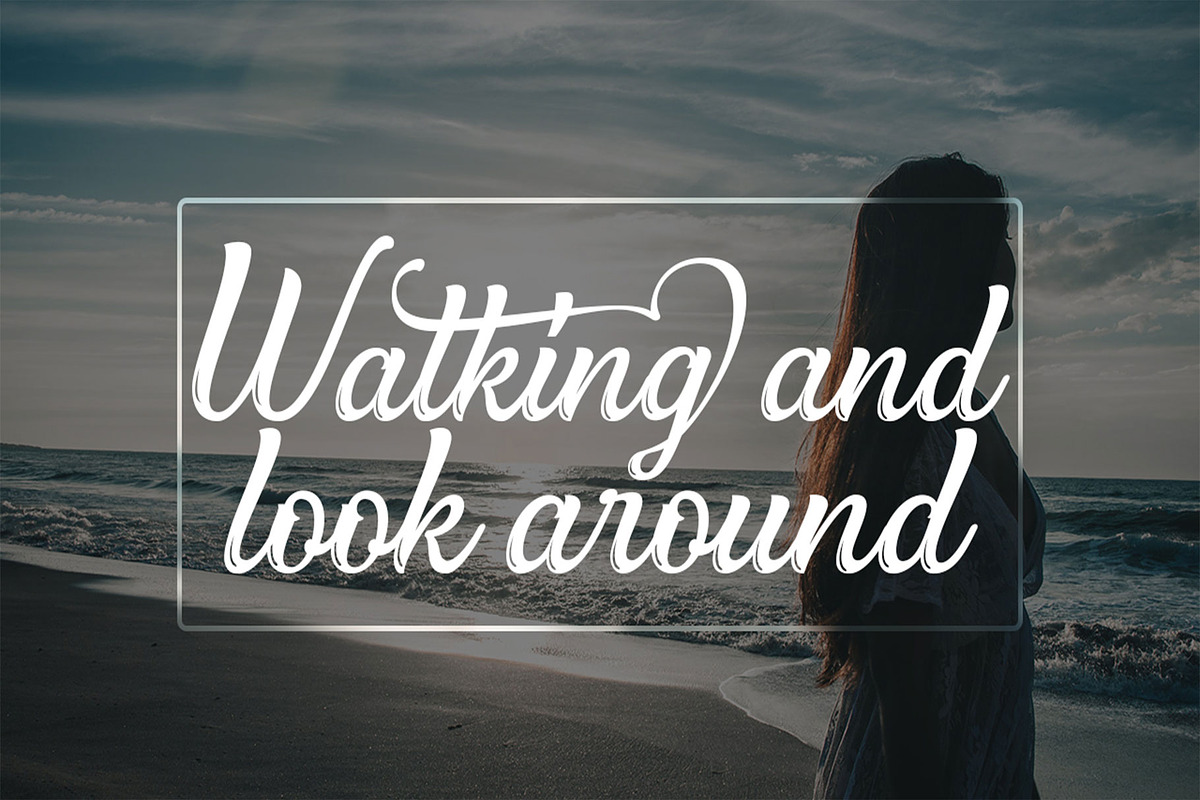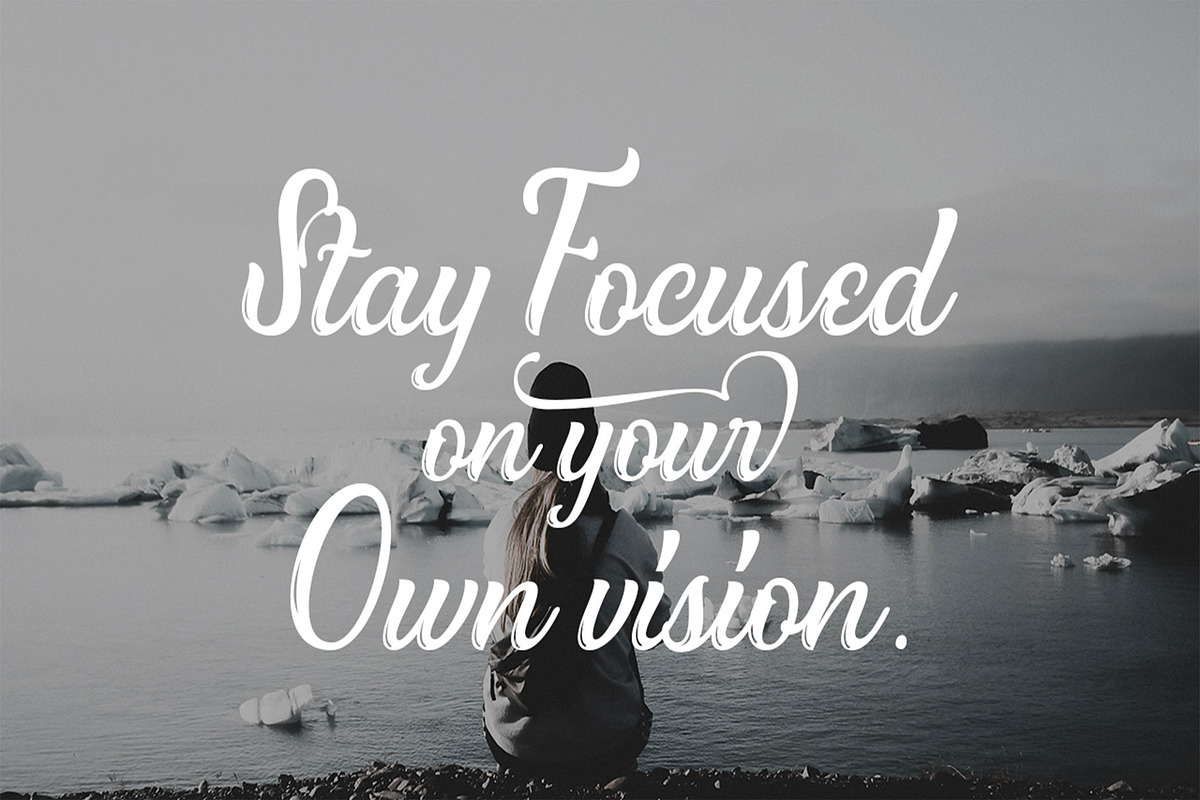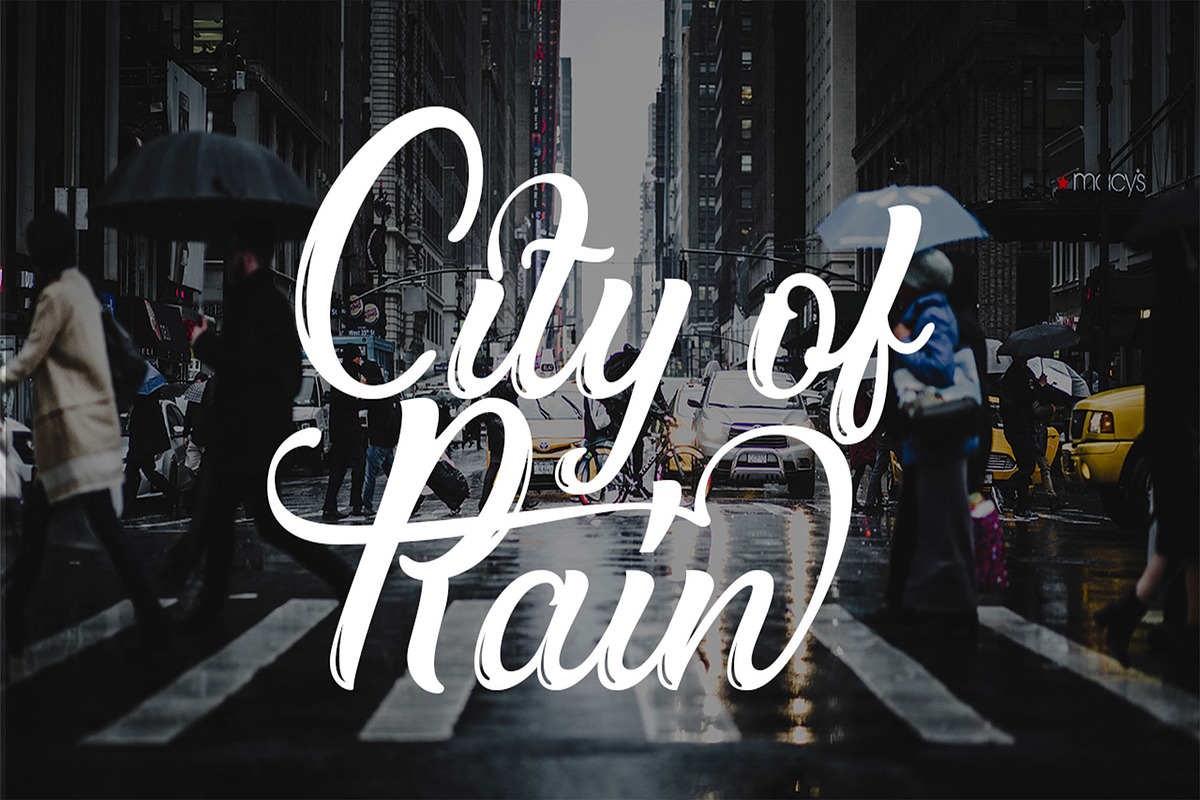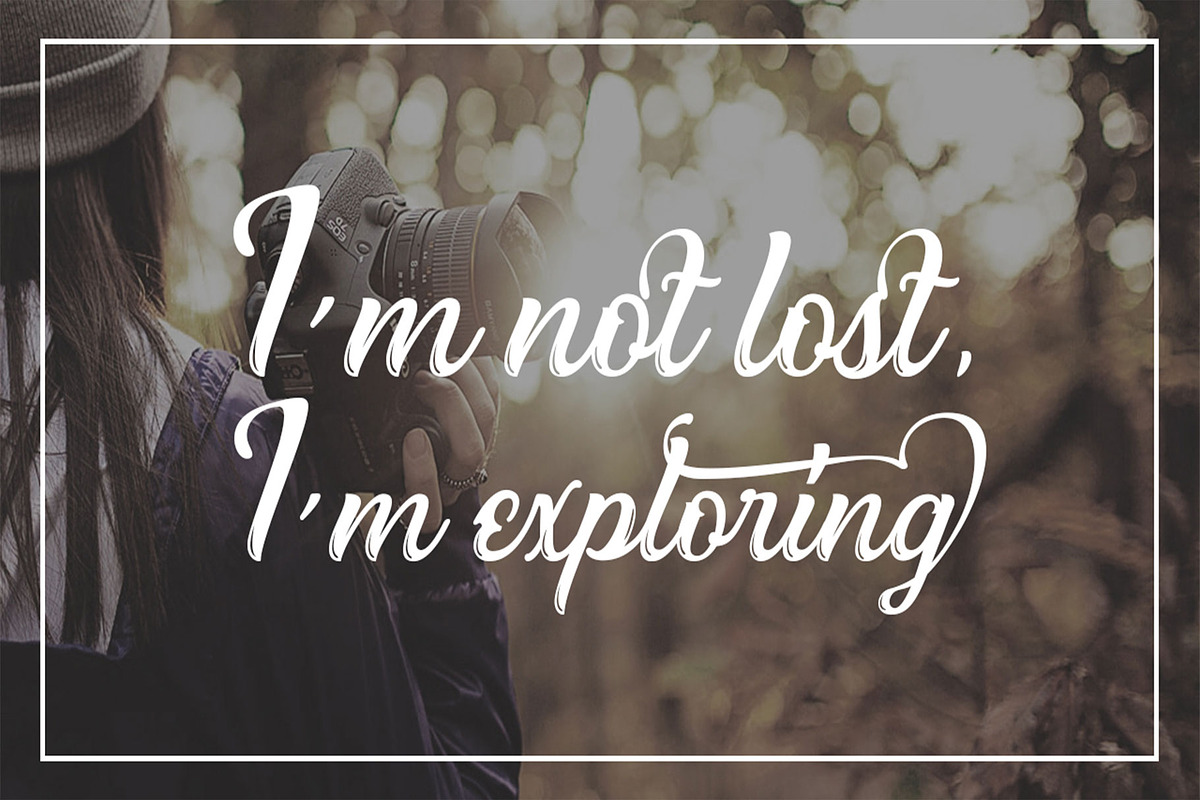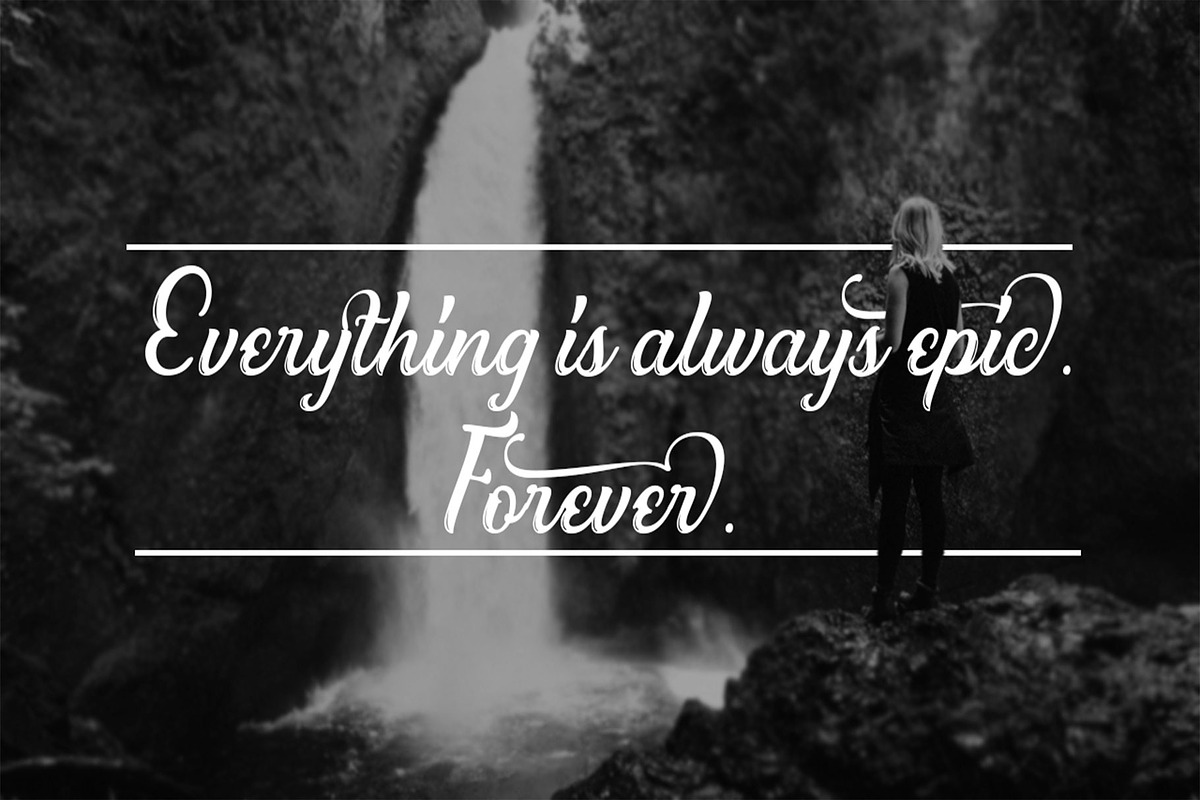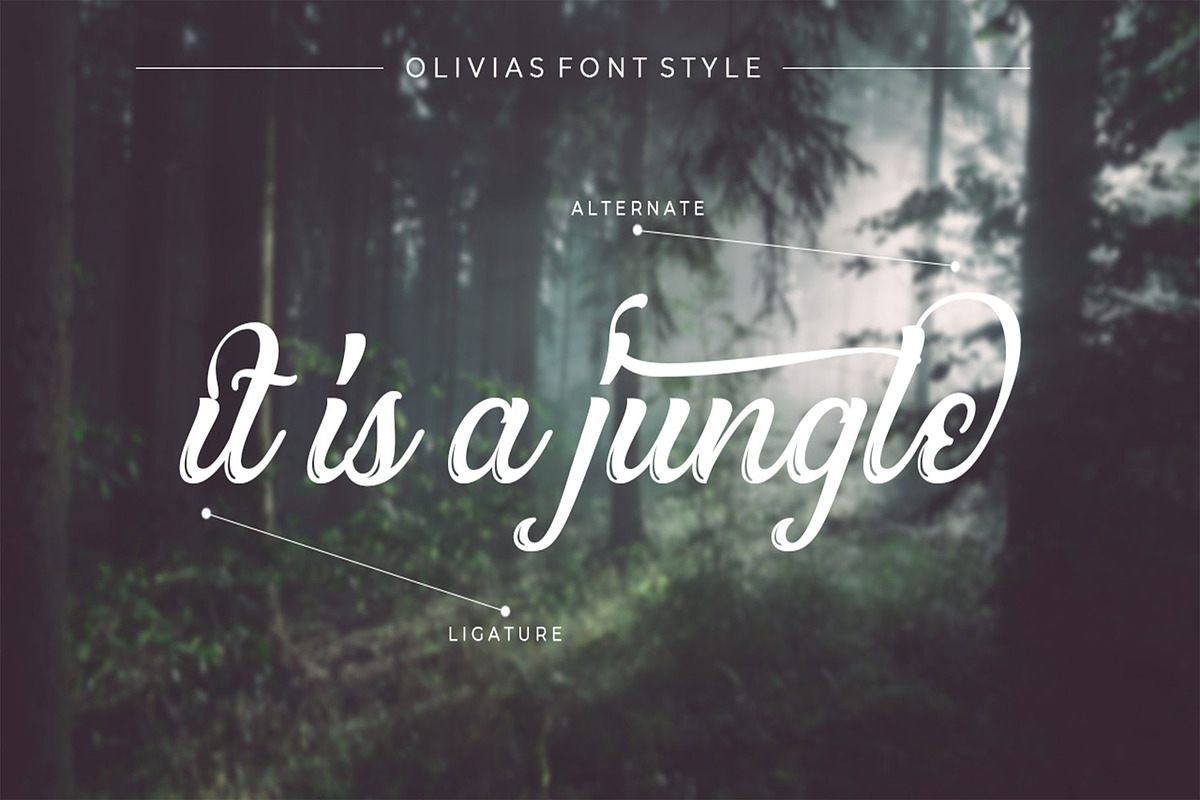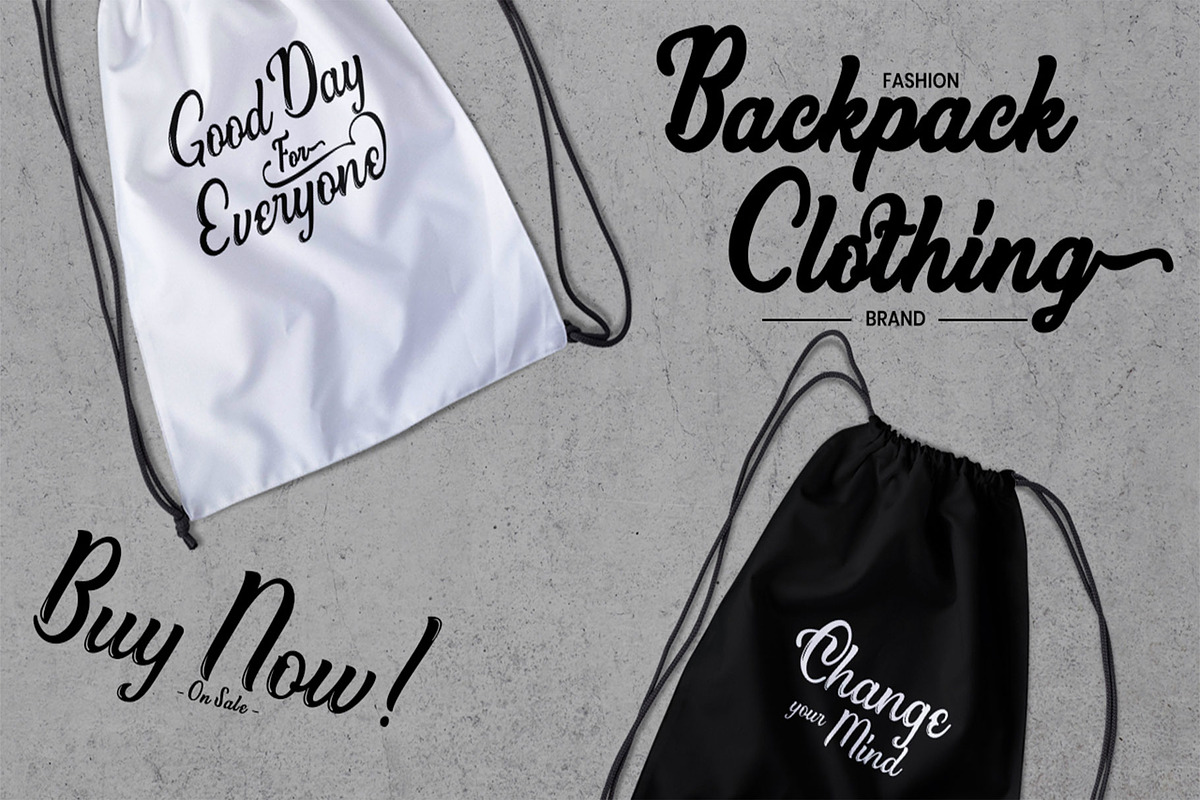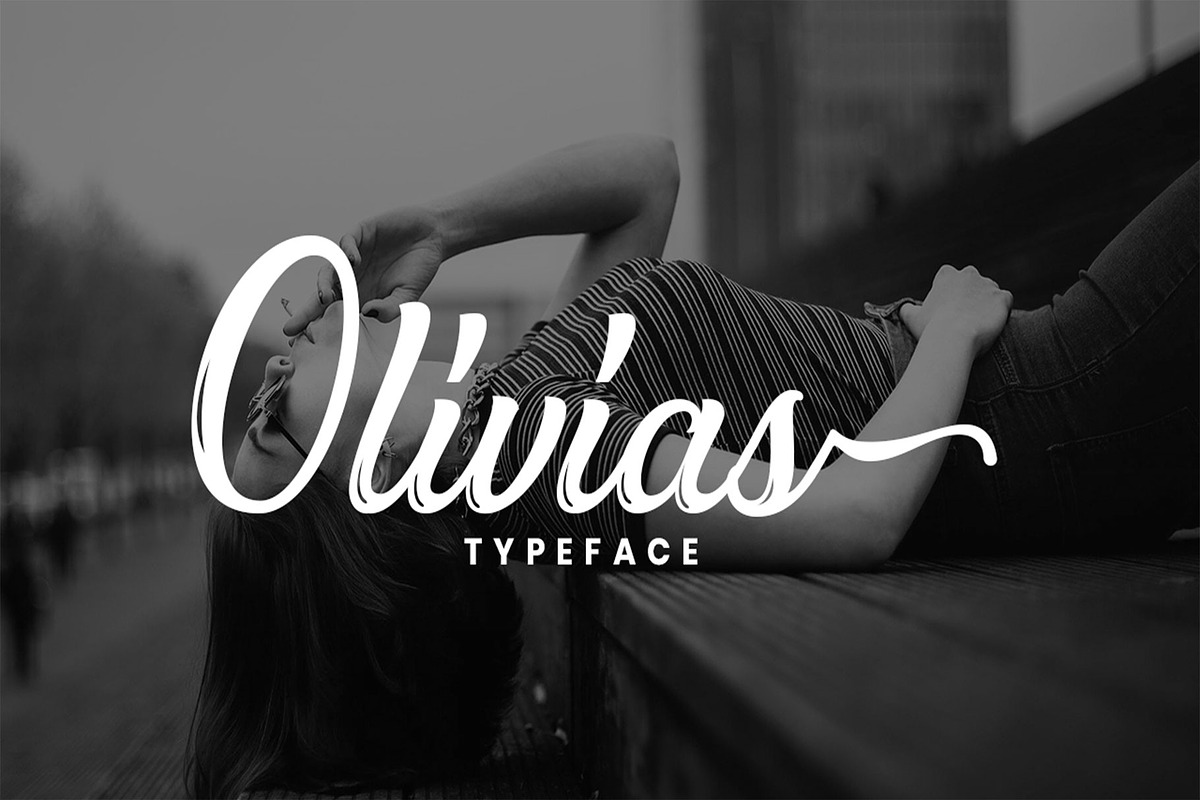
Olivias Typeface
Olivias script typeface with sense calligraphy style clean. ideal for logos, poster, branding, quotes, product, merchandise, name tag dll. It contains a full set of lower & uppercase letters, alternative characters, a large range of punctuation, numerals, and multilingual support.
- It contains a full set of lower & uppercase letters, alternative characters, a large range of punctuation, numerals, and multilingual suppor
Why Olivias Typeface is worth a look
Olivias Typeface by Analogous fits naturally into Branding, posters, packaging, typography.